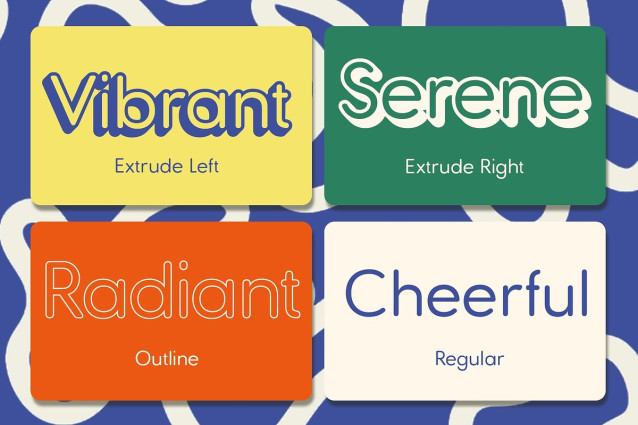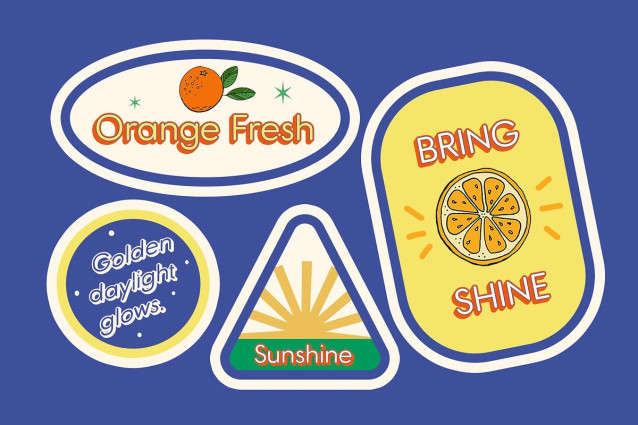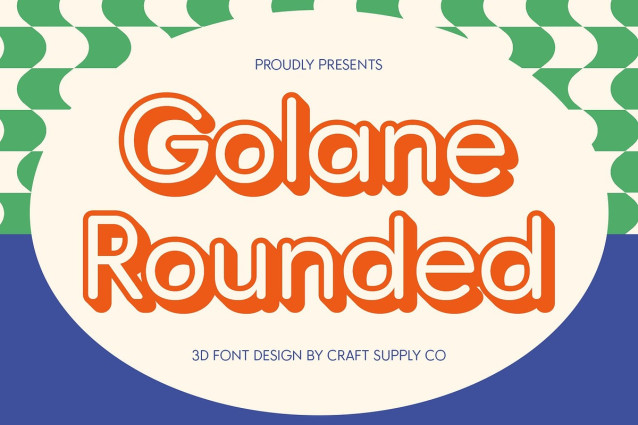
Golane Rounded 3D Font
Golane Rounded 3D is a modern sans-serif font designed with soft rounded edges, geometric structure, and a clean aesthetic. Its smooth, well-balanced letterforms create a sleek and futuristic appearance, making it perfect for modern branding and digital interfaces.
Striking 3D Effect for Added Depth With an integrated 3D effect, this rounded font brings a sense of depth and dimension, enhancing its visual impact. The subtle yet effective shading makes it appear bold, dynamic, and engaging, ensuring strong readability and presence in any design.
Ideal for Branding and UI Design This font is crafted for tech-forward and minimalist designs, making it an excellent choice for logos, app interfaces, web design, and digital marketing materials. Its geometric yet friendly look gives a balance of professionalism and approachability, perfect for businesses and brands looking for a fresh, modern identity.
Versatile for Modern Typography Needs Golane Rounded 3D is ideal for headlines, product packaging, posters, and futuristic concepts, where clarity and style go hand in hand. Its smooth curves and three-dimensional design make it stand out in both print and digital formats, offering designers a bold and contemporary typographic solution.